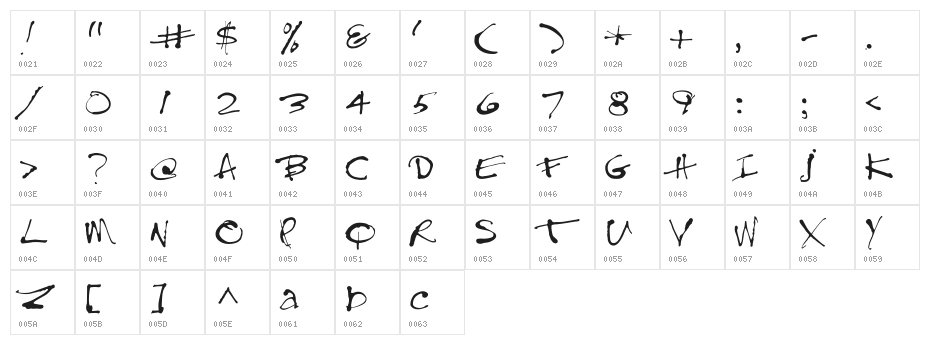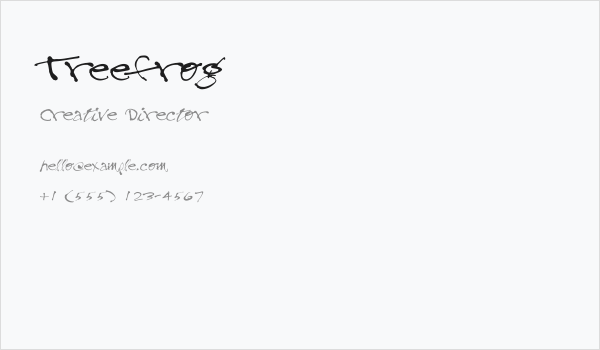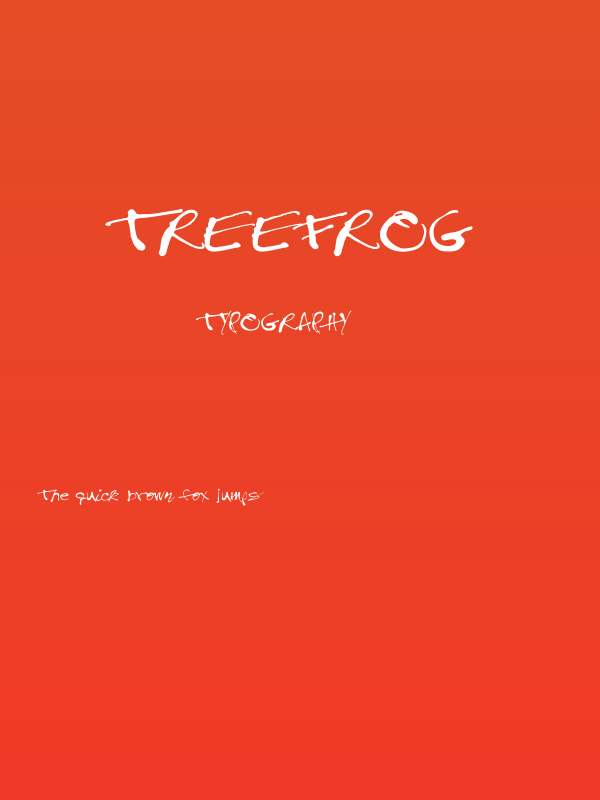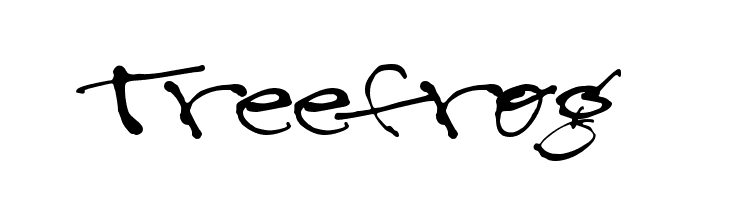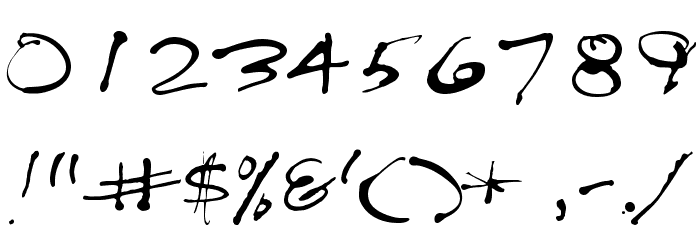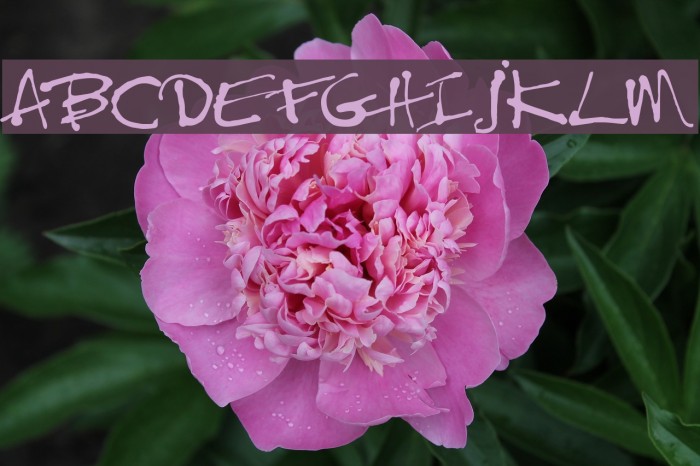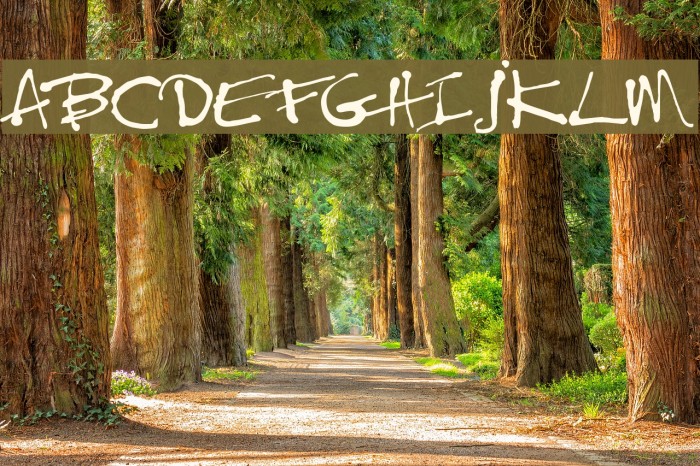
Treefrog Font
✎ Quirky
| Gesamtstil | Artistic, Expressive |
| Anwendungsfall | Logos, Posters, Creative Branding |
| Vorgeschlagene Projekte | Ideal for artistic projects, creative branding, posters, and invitations where a lively and unique style is desired. |